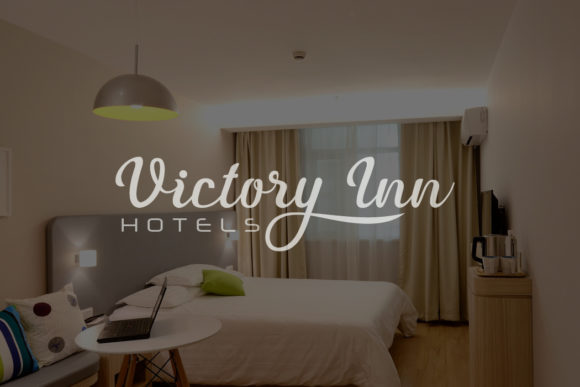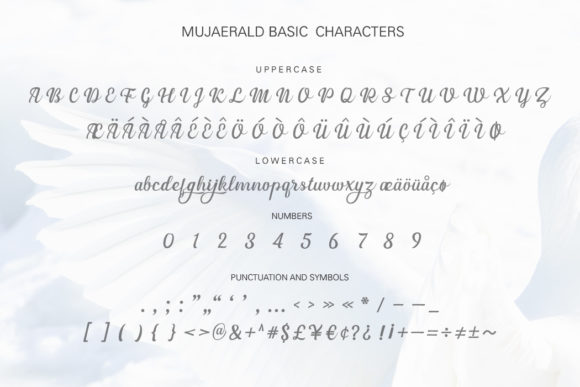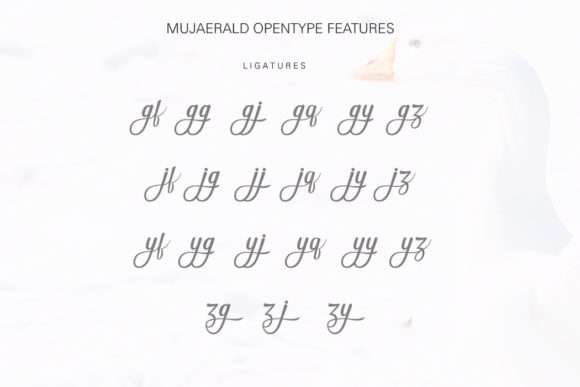
Introduction to Mujaerald Font
Have you ever been stuck on a creative project, staring at a blank page, and just can’t seem to find the right font to bring your vision to life? That’s where the Mujaerald Font comes in – a beautiful, elegant script font that’s perfect for adding a touch of sophistication to your designs.
As a valuable resource for designers, the Mujaerald Font offers a range of unique characters, including alternates and ligatures, that can give your typography a one-of-a-kind look. With its clear and simple design, this font is ideal for a variety of formal applications, from invitations and labels to logos and packaging.
Key Features of Mujaerald Font
- Designed with precision and care, ensuring high-quality output in resolutions up to 300 DPI.
- Includes a range of styles and weights, providing designers with the flexibility to achieve the desired visual effect.
- Perfect for use in digital design, including web and mobile applications, as well as print materials like business cards and brochures.
Honest Review: Mujaerald Font
I recently stumbled upon the Mujaerald Font while searching for a new design resource for my creative project. I was blown away by its high quality and versatility. Here’s my honest review of this amazing font.
- The Mujaerald Font offers a wide range of styles, making it perfect for various design projects.
- Its high-quality design ensures that text appears clear and readable, even on transparent backgrounds.
- The Mujaerald Font may not be suitable for very formal or traditional design projects, as it has a modern and minimalist feel.
- Some users may find the font’s style too simplistic, which could limit its creative potential.
Overall, I’m thoroughly impressed with the Mujaerald Font. Its high quality, versatility, and free download make it an excellent choice for designers. While it may have some limitations, I believe it’s a valuable resource for any creative project.
Tips for Getting the Most Out of Mujaerald Font
For the best results, use Mujaerald Font in combination with other design elements. Experiment with different font sizes and colors to create a visually appealing design. You can also use Mujaerald Font as a free download and integrate it into your creative project.
Mujaerald Font is ideal for a variety of creative projects, including branding, marketing materials, and digital designs. Its high-quality and transparent background make it a popular choice among designers.